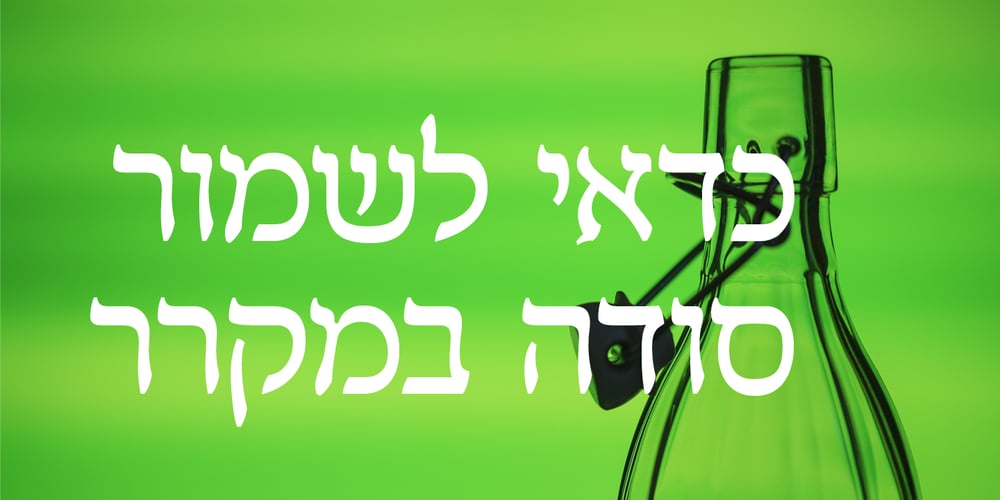
Frenkel MF
Frenkel MF font
Frenkel MF Font Family was designed by Eliyahu Fried and published by Masterfont. Frenkel MF contains 2 styles and family package options. A practical font family with 2 weights for all your needs: headlines, body text, signage etc.High legibility at small sizes.